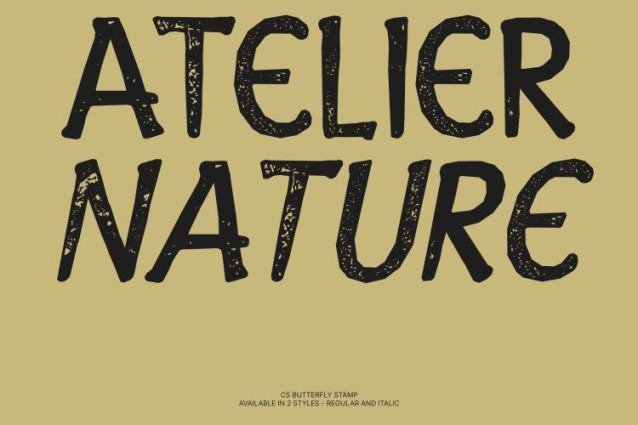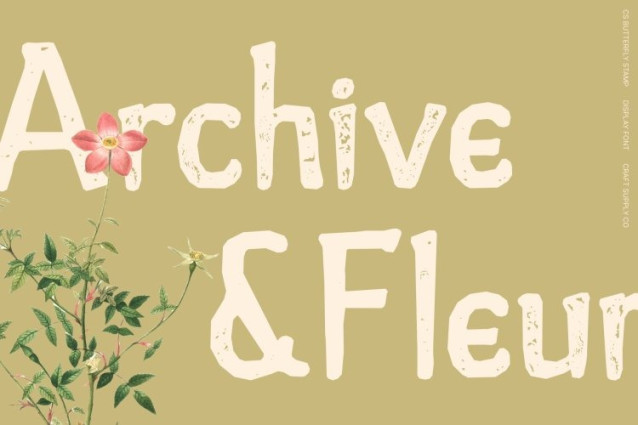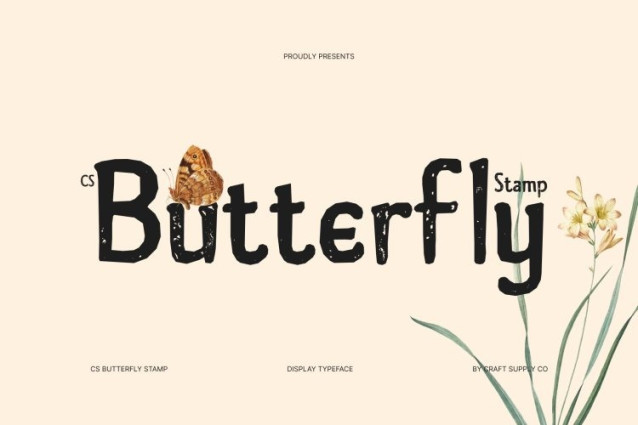
CS Butterfly Stamp Font
CS Butterfly Stamp Font is a modern display font reimagined with a vintage stamp effect. Its Greek-inspired letterforms are softened with rounded shapes and given an artistic, textured finish, evoking the charm of aged prints and traditional craftsmanship. Each character carries subtle imperfections and worn edges, adding an authentic, handcrafted feel while retaining the classical sophistication of its design.
Artistic Texture and Old-World Character
The stamp effect transforms into a typeface full of personality. Its letters appear slightly distressed, with uneven ink textures and delicate marks reminiscent of historical print techniques. This artistic detail adds depth and warmth, giving designs a nostalgic, handcrafted quality while keeping the refined, cultured essence of Greek-inspired forms.
Perfect for Creative, Vintage, and Sophisticated Projects
This is ideal for projects that need a blend of elegance and historical character. Whether for vintage-inspired branding, artisanal product packaging, editorial layouts, or decorative posters, it imparts an old-world charm and sophisticated texture. This font turns every word into a piece of art, combining timeless design with a tactile, visually engaging presence.